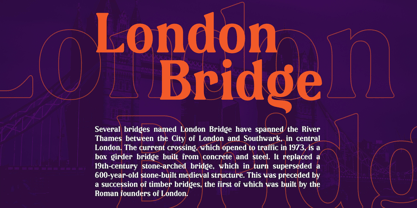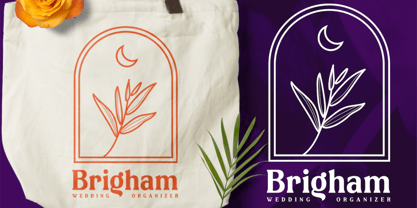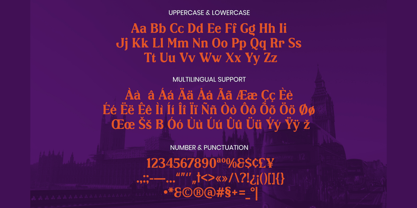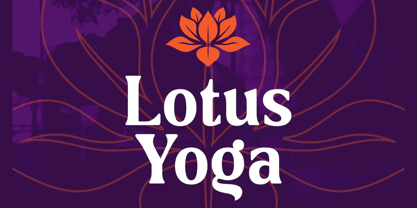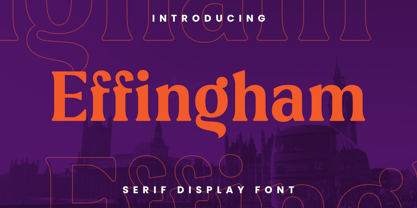
Effingham
Die Schriftfamilie Effingham wurde von Aulia Savira Putri entworfen und von Imoodev veröffentlicht. Effingham enthält 1 Stile. Mehr über diese Familie
Effingham is a sophisticated and highly versatile serif display font that bridges the gap between classic elegance and modern quirkiness. The typeface features distinct, flowing curves combined with sharp, traditional serif terminals, giving it a unique personality that feels both established and contemporary.
The font is designed for high impact usage, making it an excellent choice for branding, editorial headlines, wedding invitations, and luxury packaging. Its balanced weight and readability ensure that it holds up well in both large display formats and smaller, supporting text contexts.